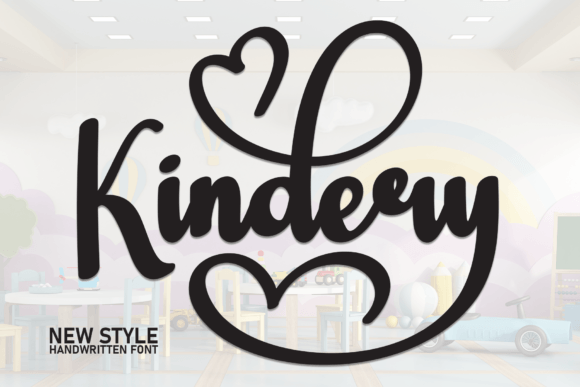
Immerse yourself in the world of Kindery Font, a captivating script font that dances across the digital canvas, leaving a trail of elegance and charm in its wake. This exquisite creation from andikastudio is not just a font; it's an artistic masterpiece that will transform your designs into visual symphonies.
With its graceful curves and delicate flourishes, Kindery Font embodies the essence of timeless sophistication. Each letter is meticulously crafted, carrying an emotional weight that speaks to the heart. Whether you're designing a heartfelt letter, a stunning invitation, or an eye-catching social media post, Kindery Font will elevate your words, making them resonate with your audience.
Journey through the depths of your creativity with Kindery Font as your trusted companion. Explore the endless possibilities of this versatile script, from elegant wedding invitations that exude romance to professional resumes that command attention. Unleash your inner artist and let Kindery Font guide you towards design brilliance.
Step into a realm where imagination knows no bounds, where words come alive with personality, and designs captivate hearts. Kindery Font is more than just a font; it's an experience that will transform your creative endeavors into unforgettable masterpieces.